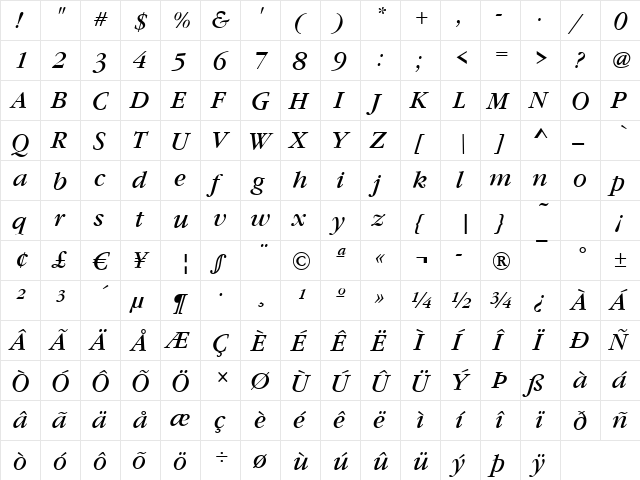
Garfeld-Nova Italic
Design Context for Garfeld-Nova Typeface
Garfeld-Nova is a composed and adaptable typeface that performs quietly and consistently across a wide range of design contexts. Its italic angle brings a sense of urgency and motion to the letterforms.
Pro Tip: Use Garfeld-Nova for emphasis, pull quotes, and subheadings where its slanted energy can add rhythm to the layout.